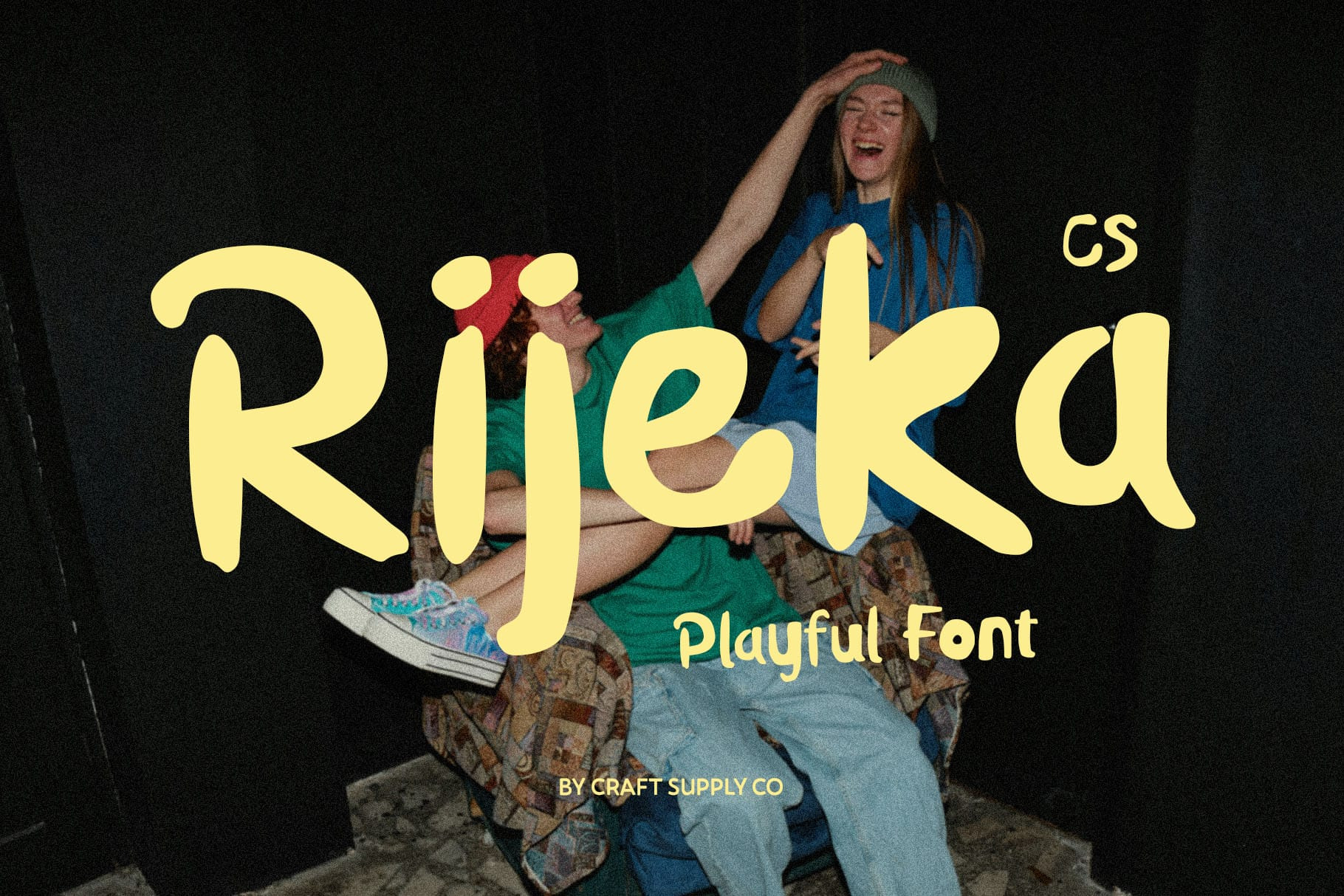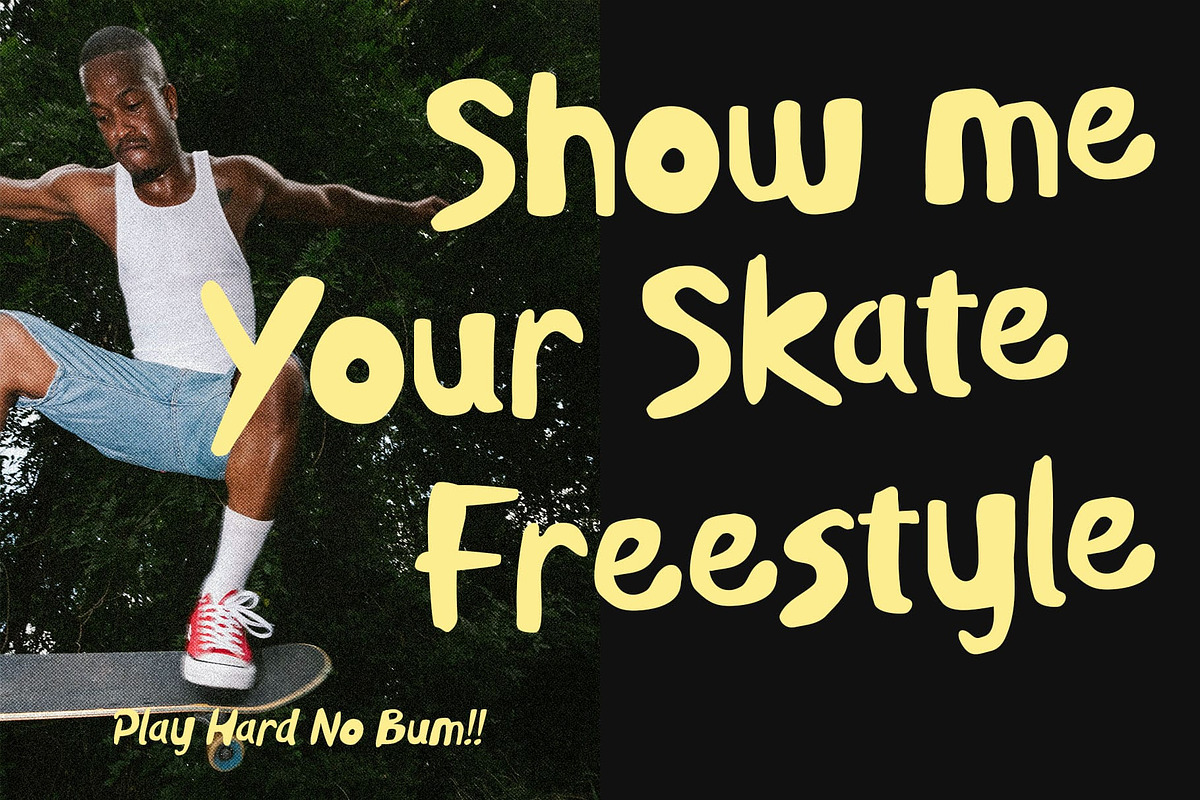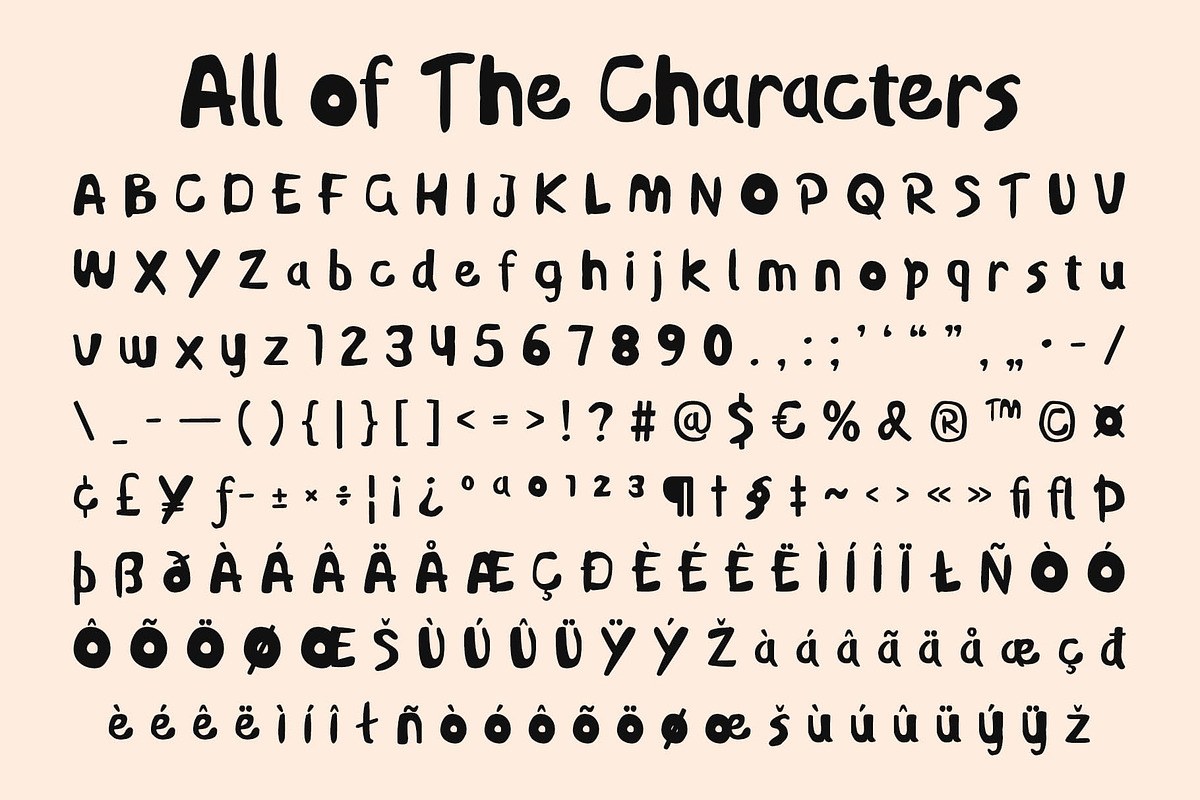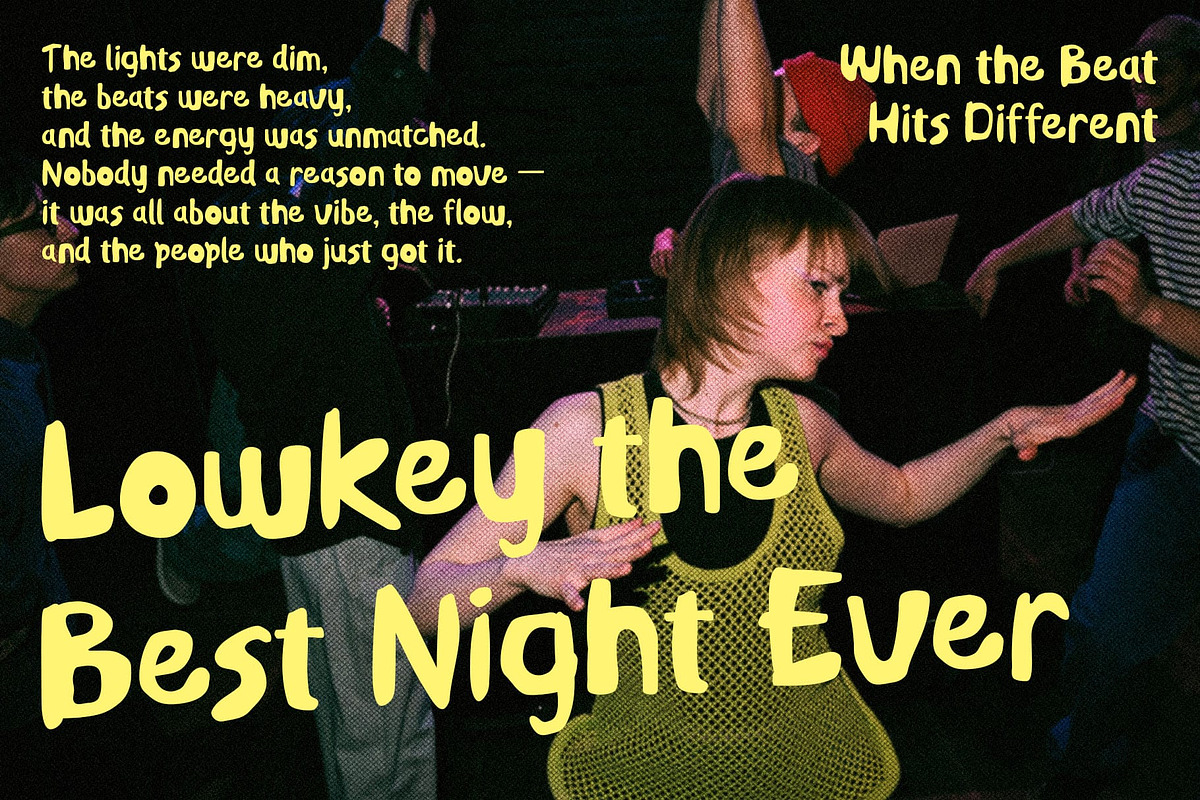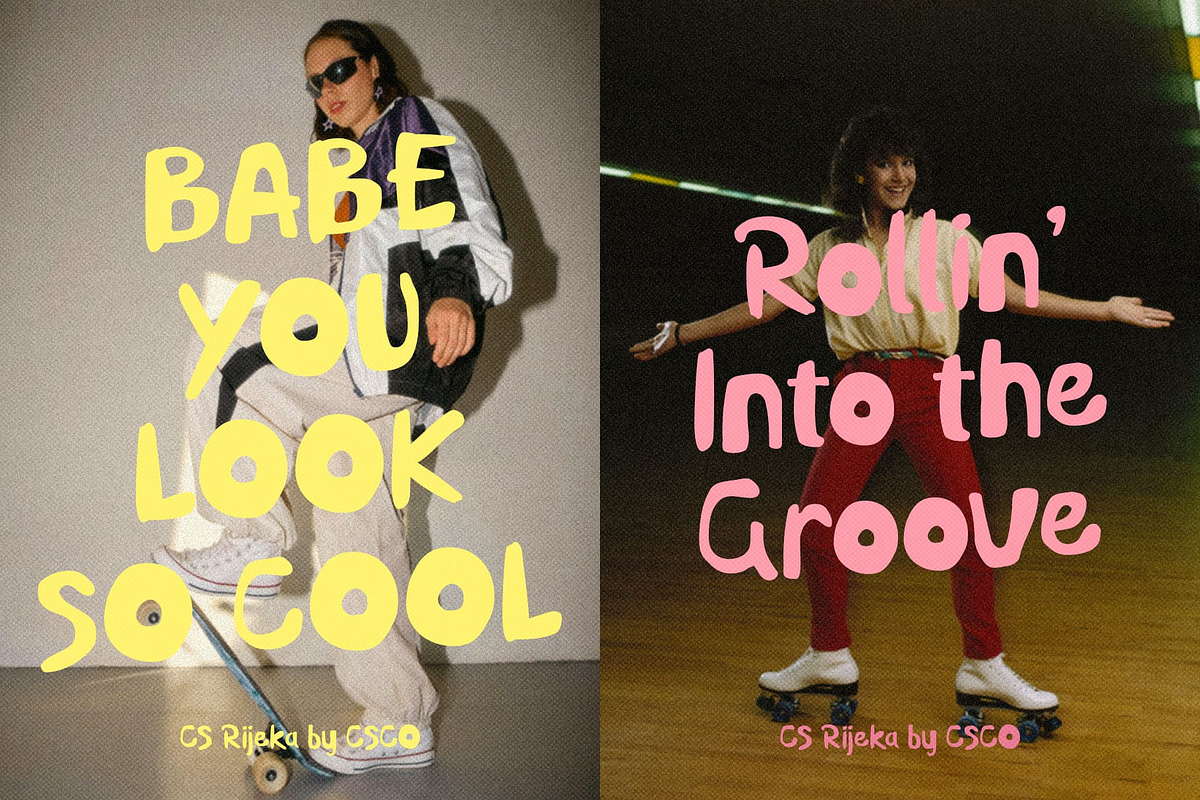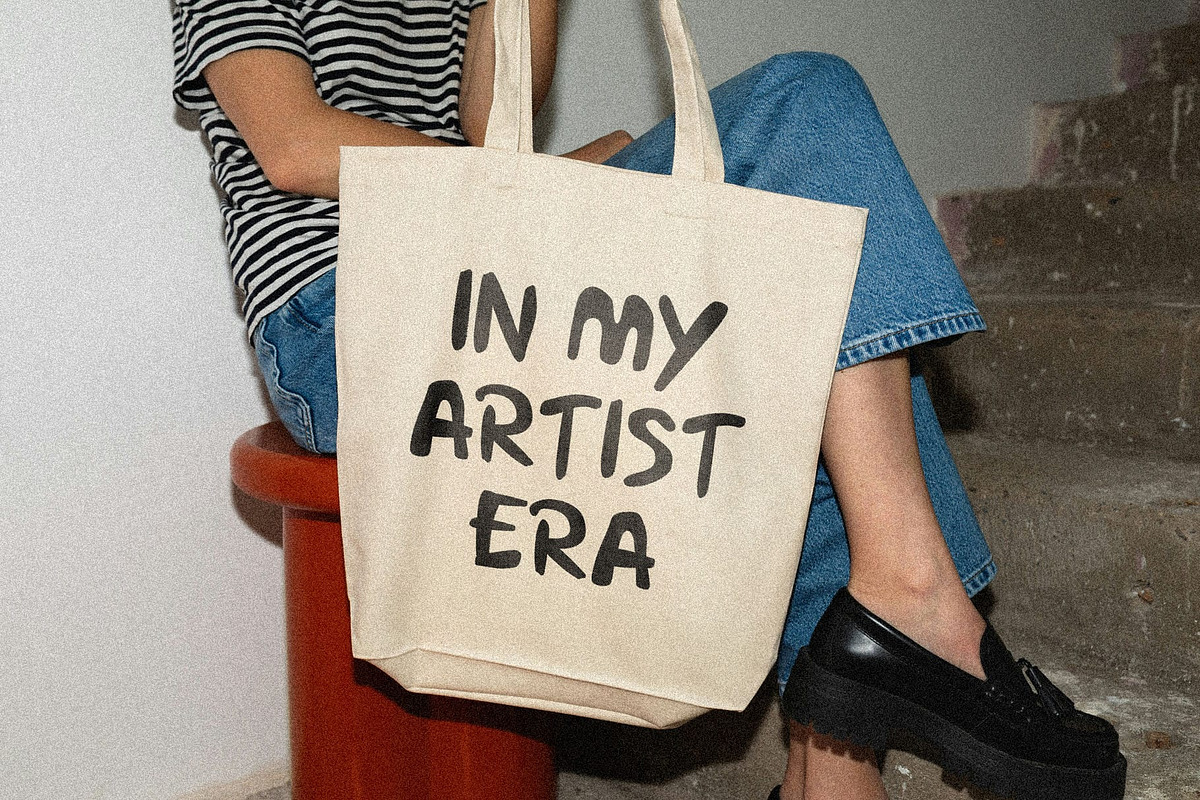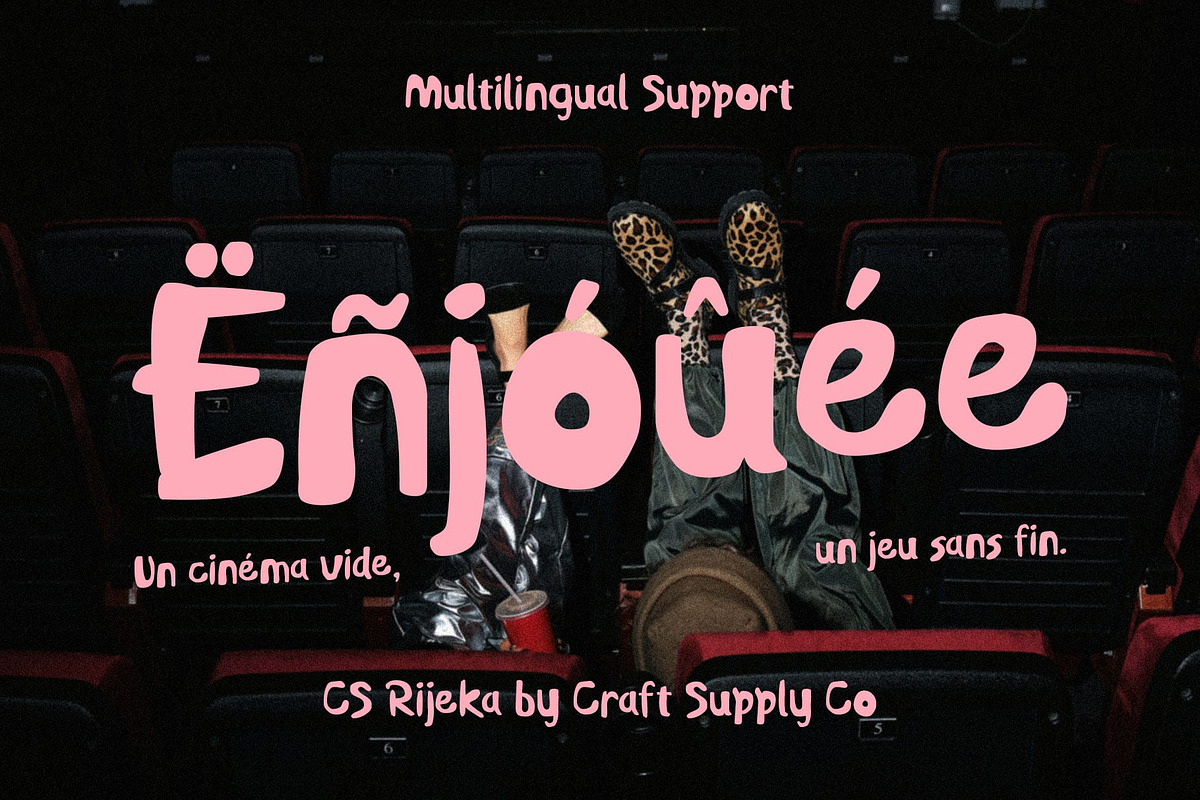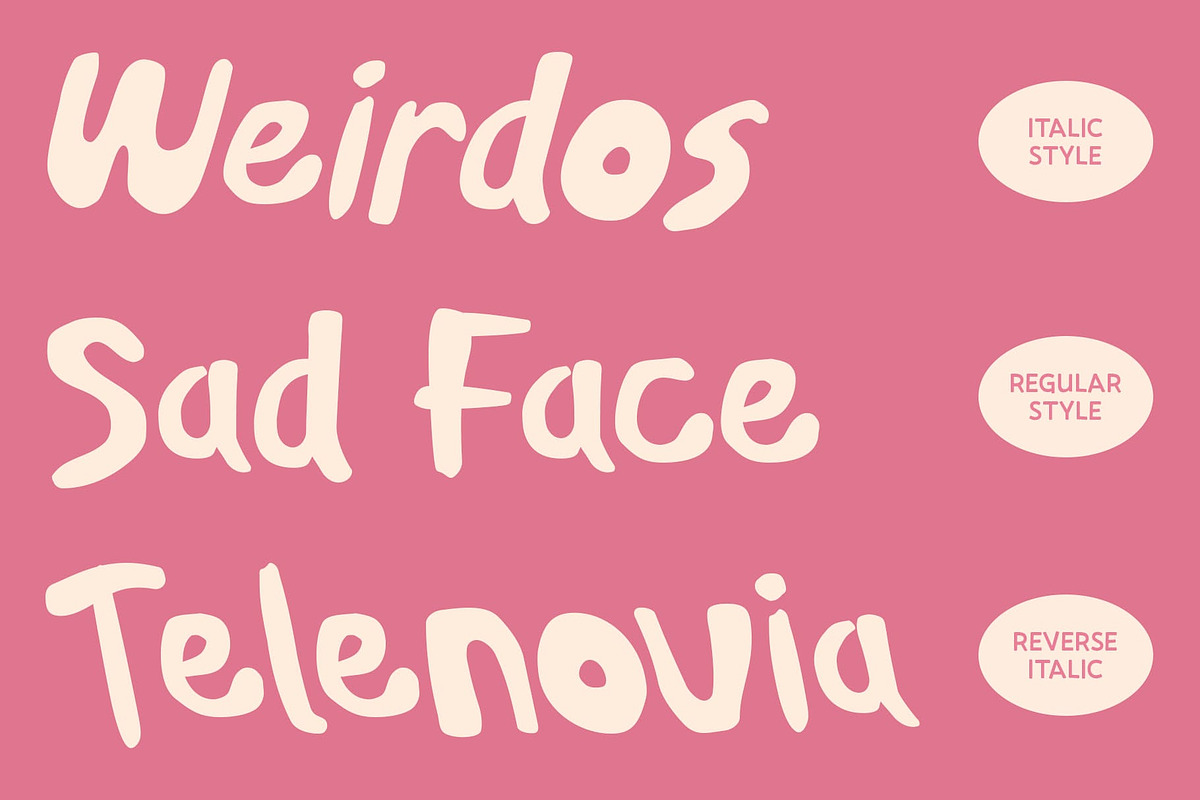
CS Rijeka – Playful Font
CS Rijeka – Playful Handdrawn Font
Modern Display Font with Fun Energy
Relaxed and Friendly Style CS Rijeka is a playful font with a modern twist, designed to bring charm and personality to any project. Its handdrawn qualities give it a relaxed and approachable feel, making it perfect for designers who want to add warmth and creativity to their work.
Cute and Fun Vibe With its slightly abstract line structure, CS Rijeka captures the spontaneity of scribbles while keeping a fun and cute character. The font radiates friendliness and a joyful energy, making it an excellent choice for projects aimed at youth, children, or playful design contexts.
Perfect for Creative Projects From posters and illustrations to packaging and social media graphics, CS Rijeka adapts effortlessly to different creative needs. Its casual yet stylish aesthetic makes it a versatile font for headlines, quotes, and decorative text.
Adds Character as a Complementary Font CS Rijeka also works beautifully as a complementary typeface, adding personality to more structured layouts. Whether paired with clean sans-serifs or bold display fonts, it enhances the overall design with its unique charm and handdrawn authenticity.
- CS Rijeka Regular
- CS Rijeka Italic
- CS Rijeka Reverse Italic